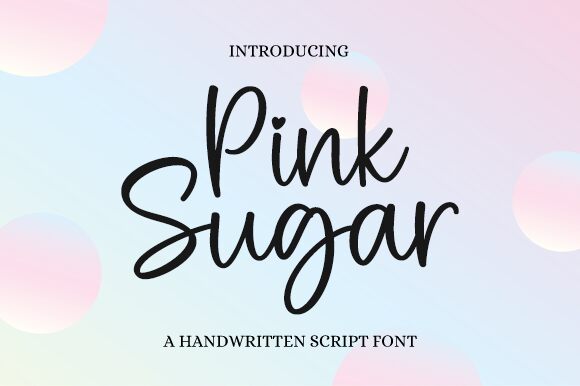
Pink Sugar
Pink Sugar, designed by Graphix Line Studio, exudes a sweet charm with its semi-light handwritten style. The font's playful loops and elegant curves suggest a casual sophistication, perfect for projects that demand a personal touch with an air of refinement. Its aesthetic appeal lies in the delicate balance between whimsy and elegance, making it an ideal choice for invitations, branding materials, and editorial designs that aim to stand out.
The softness of Pink Sugar lends itself to creative endeavors seeking to convey warmth and approachability. Whether you're designing a logo that requires a human touch or crafting marketing materials that need to resonate on a personal level, this font is versatile enough to enhance your message without overpowering it. With Pink Sugar, your designs will speak with grace and flair.